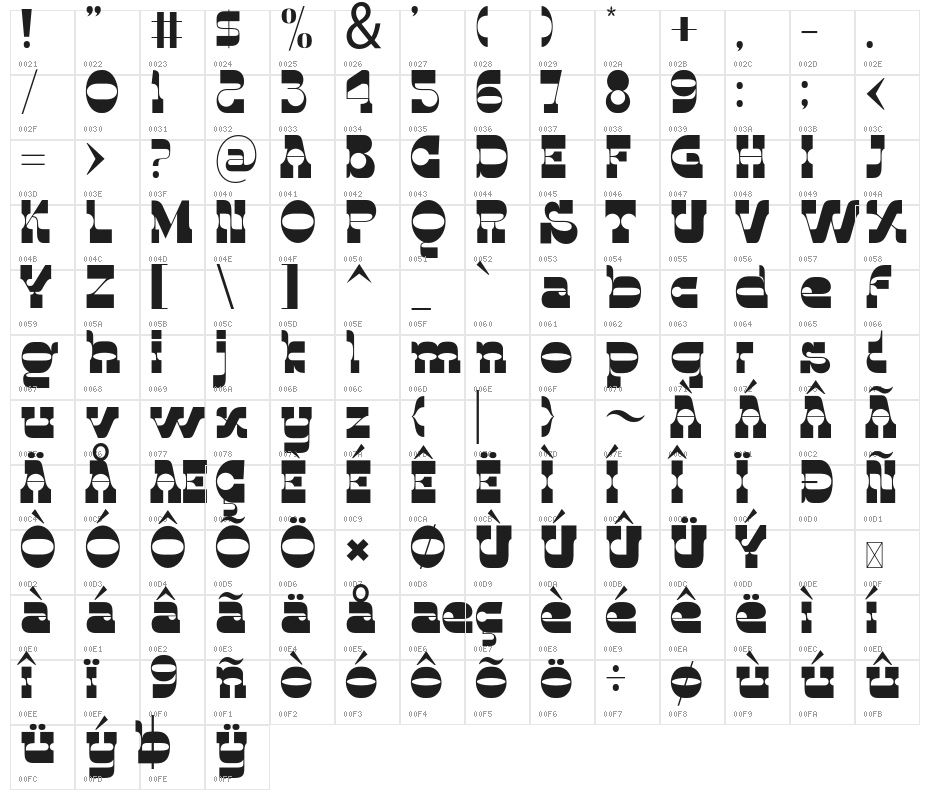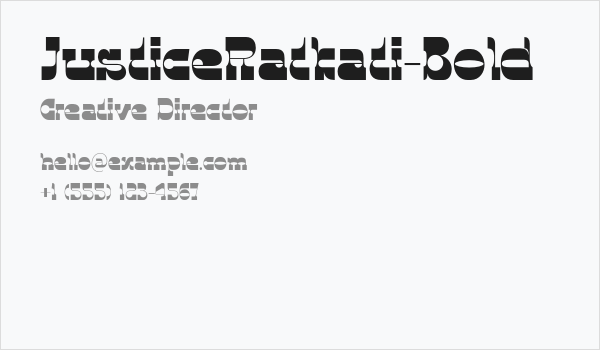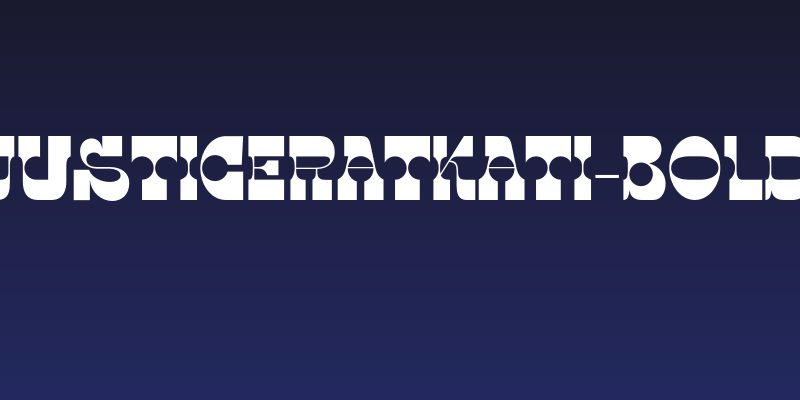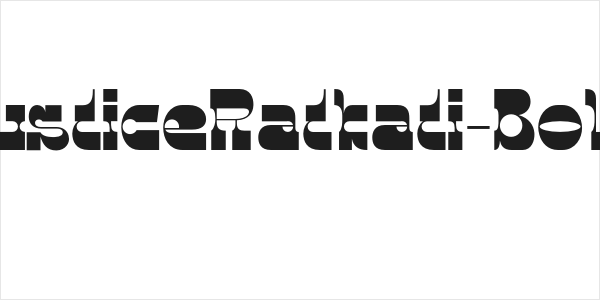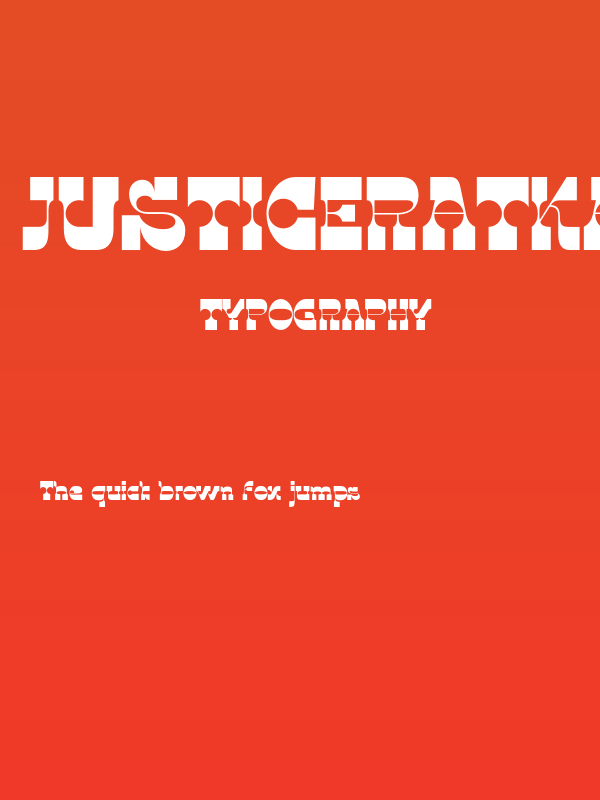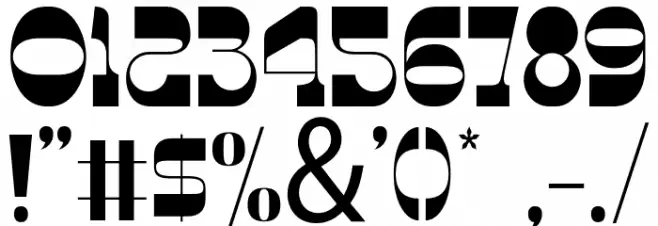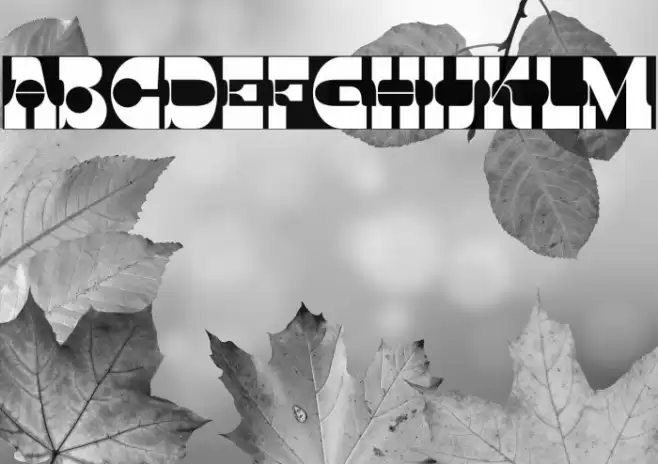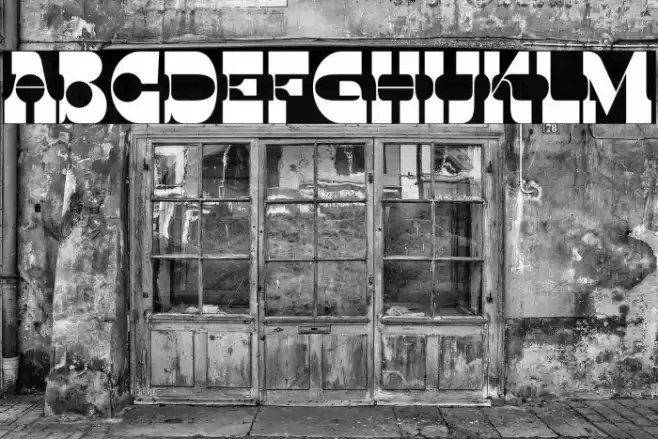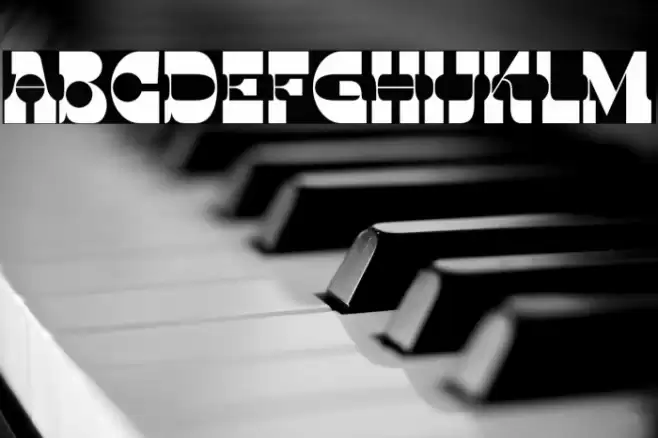
JusticeRatkati-Bold Font
This font features a bold, geometric design with high contrast between thick and thin strokes. The characters are constructed with a unique blend of circular and rectangular shapes, creating a futuristic and dynamic appearance. The uppercase letters are particularly striking, with their bold presence and distinctive style. The lowercase letters maintain the same geometric theme, offering a cohesive look across the alphabet. Numbers and special characters are equally bold and stylized, making them stand out in any design. The overall aesthetic is modern and eye-catching, suitable for projects that require a strong visual impact.
| Proposed Projects | Ideal for branding, posters, headlines, and any project needing a bold, futuristic look. |